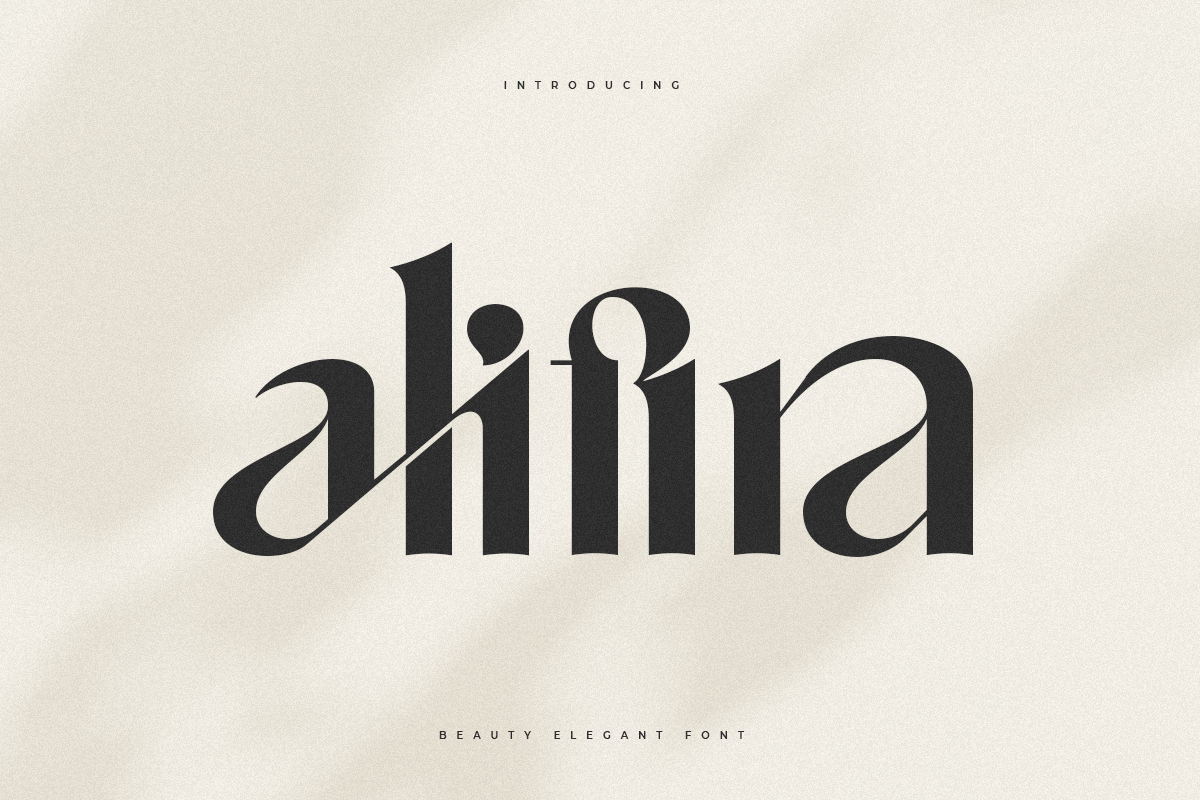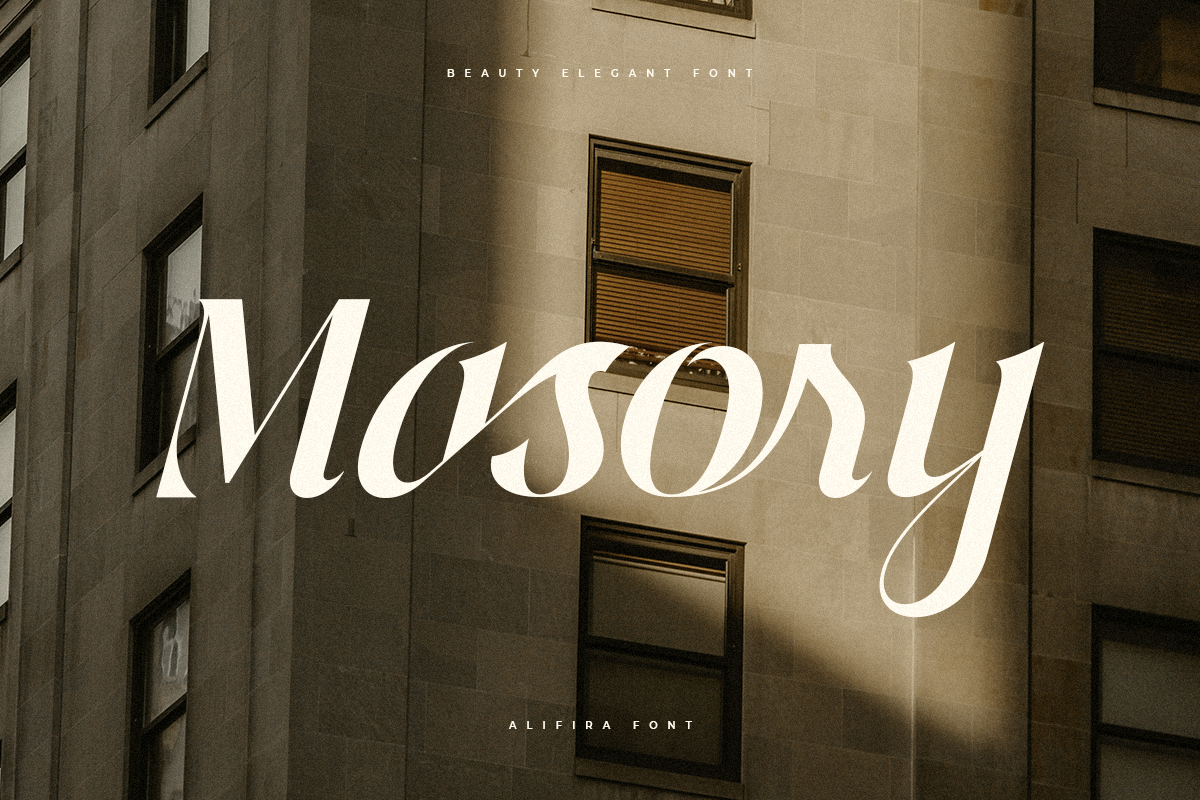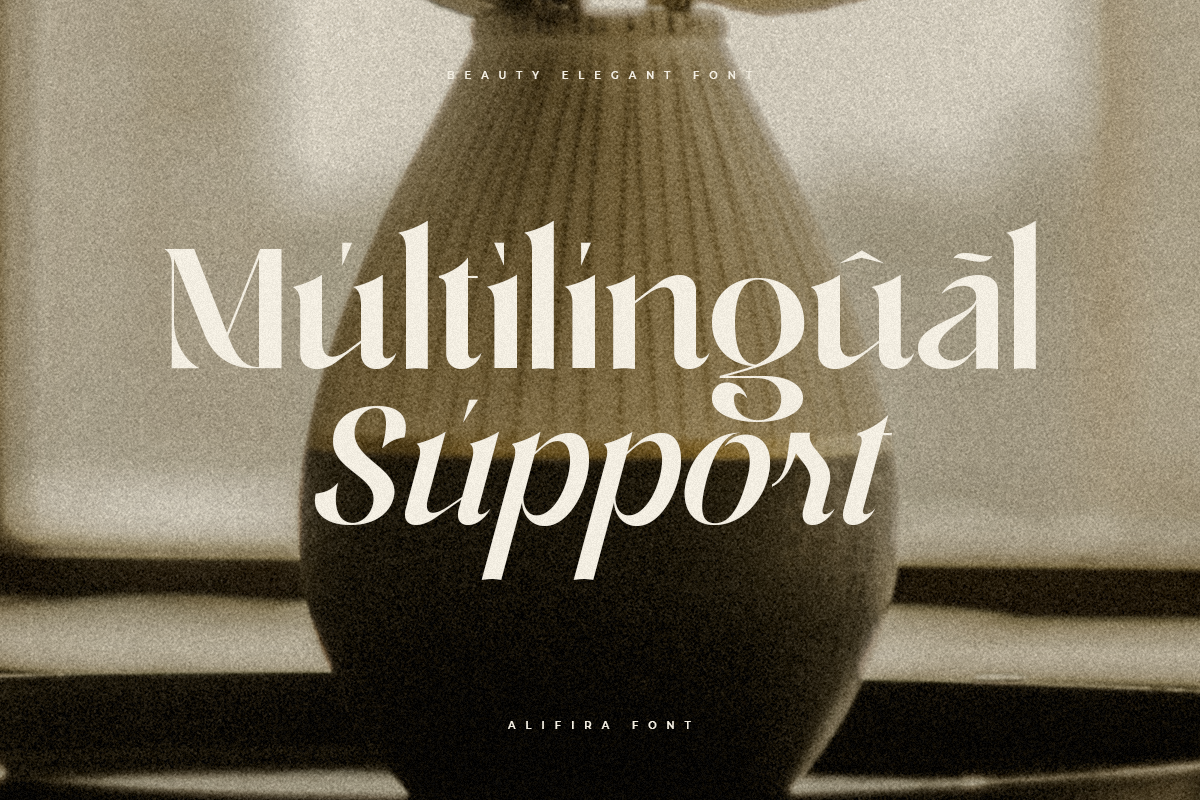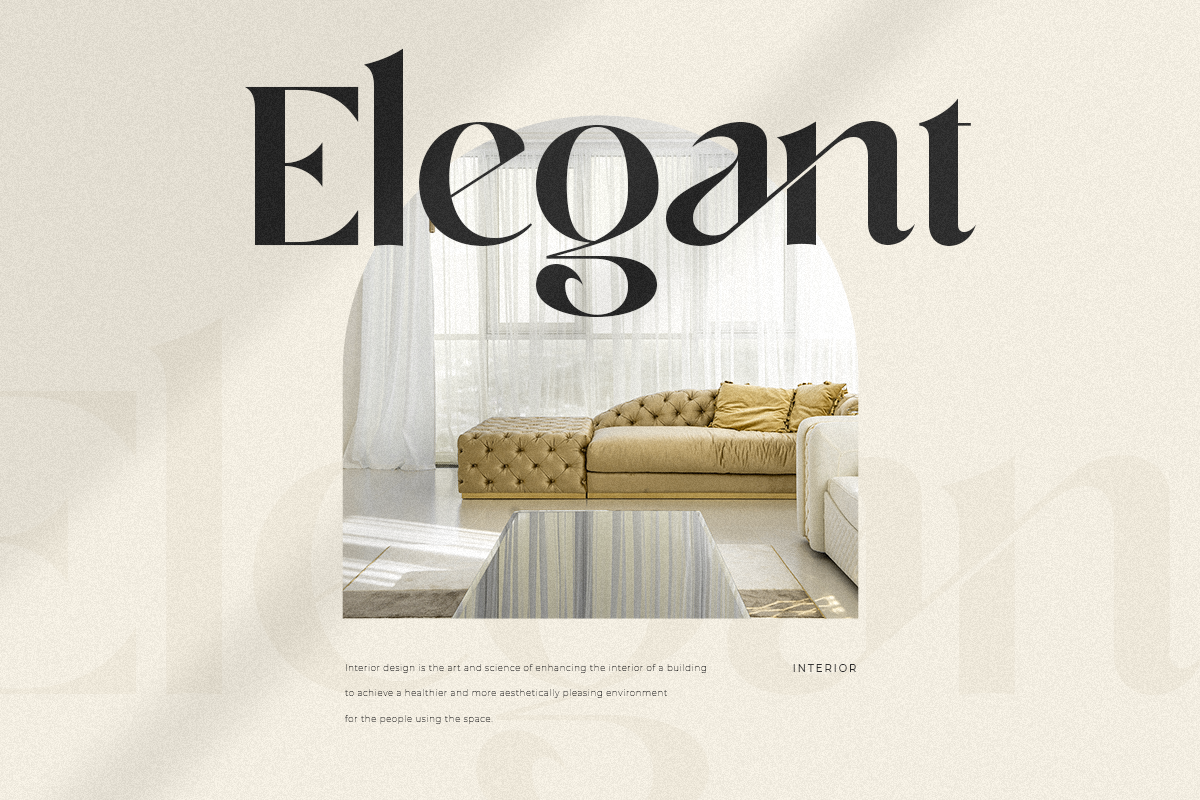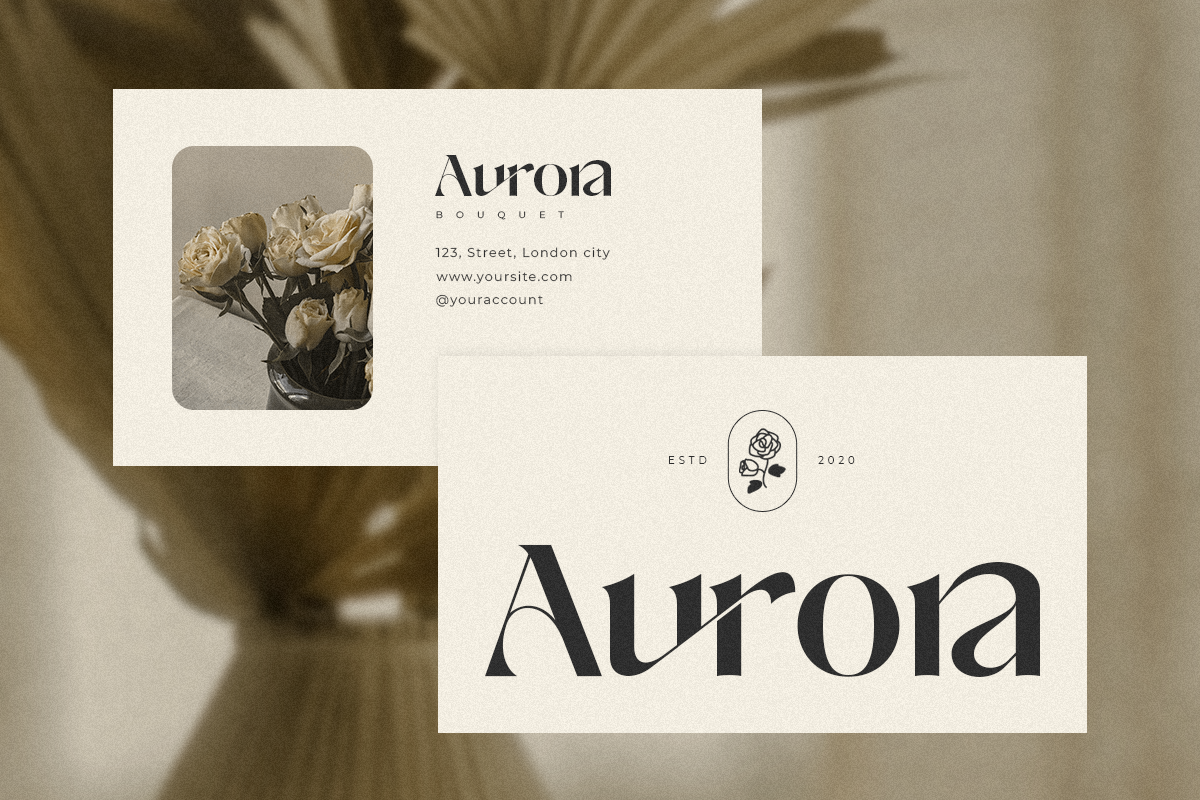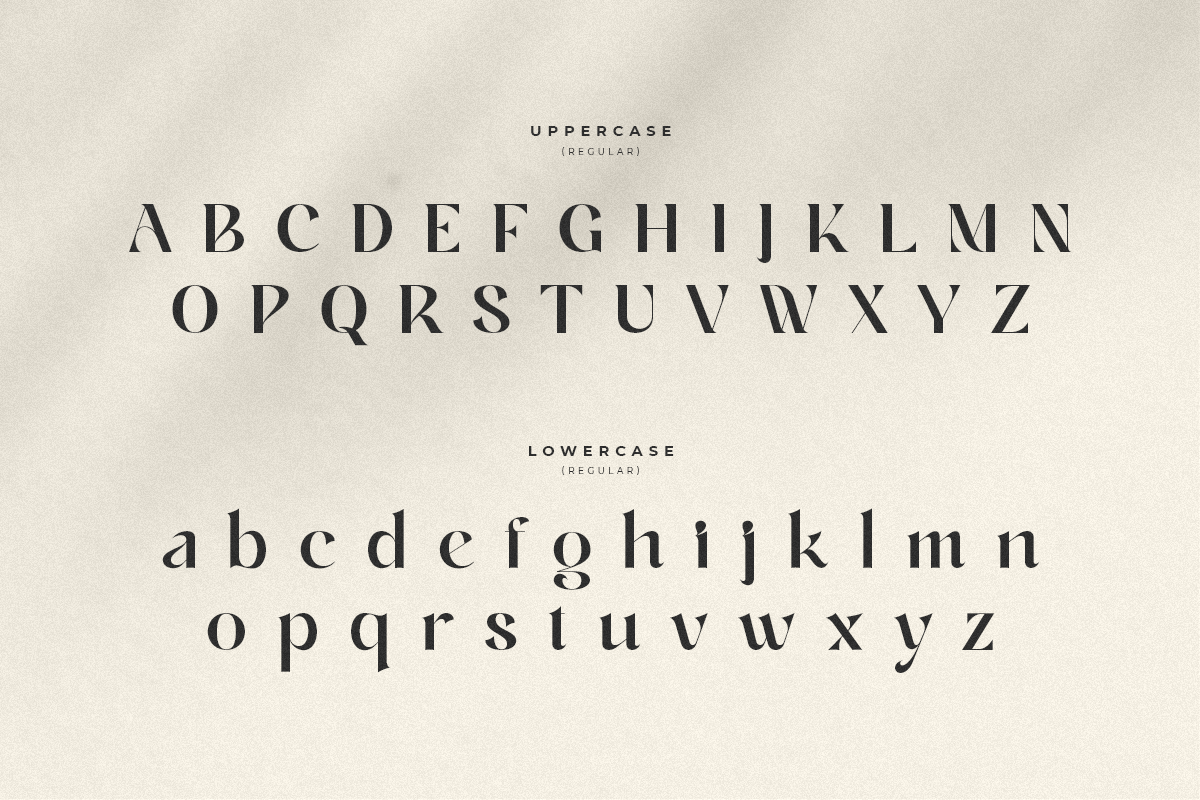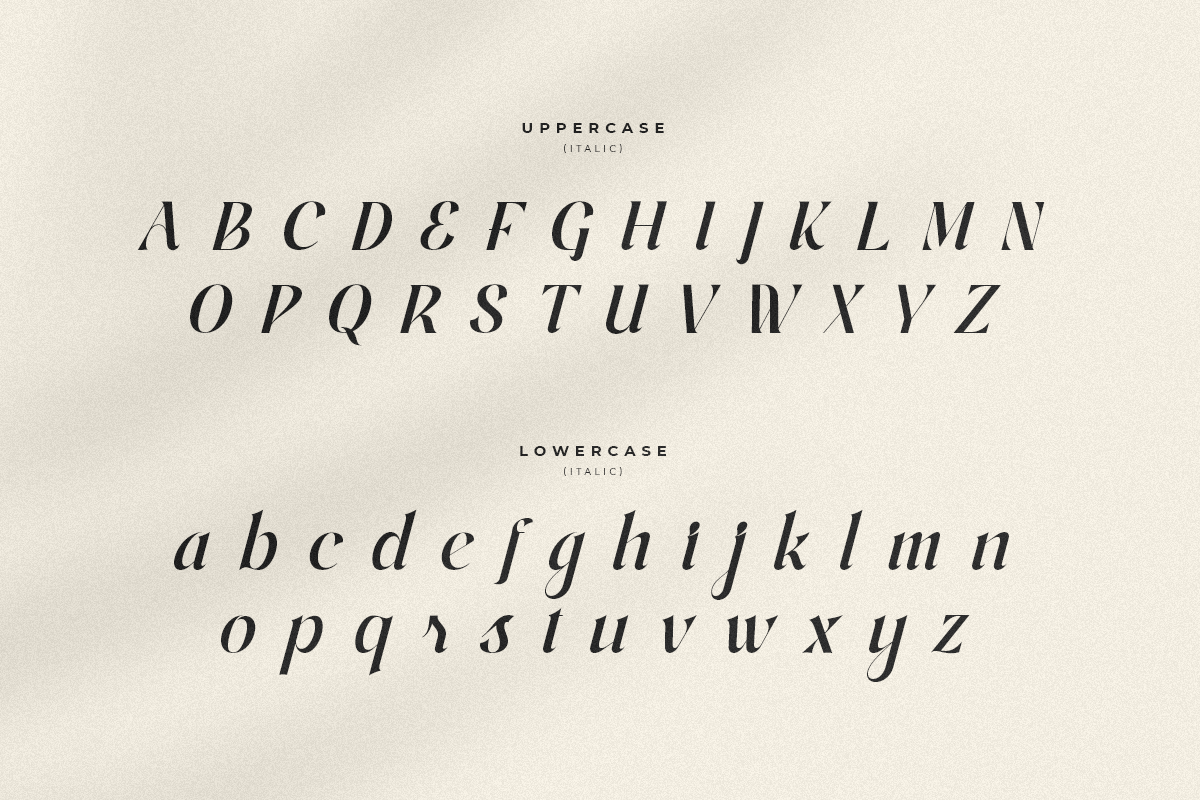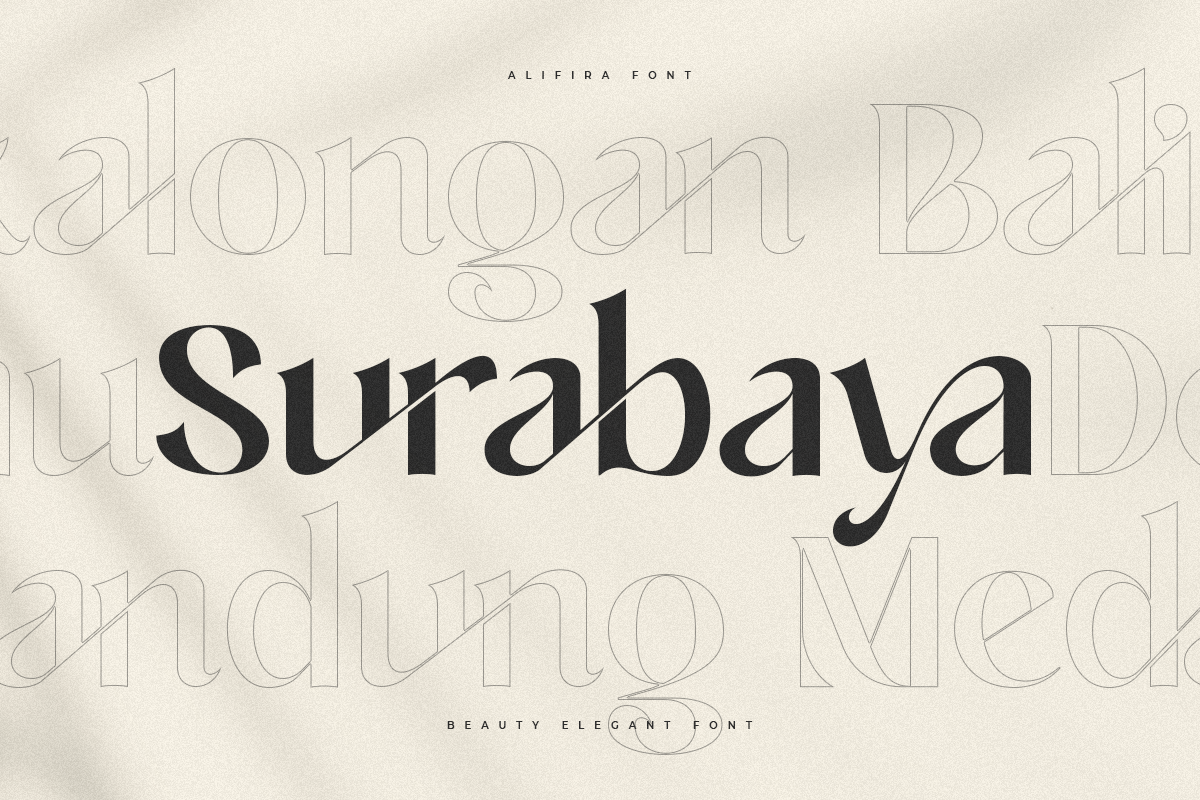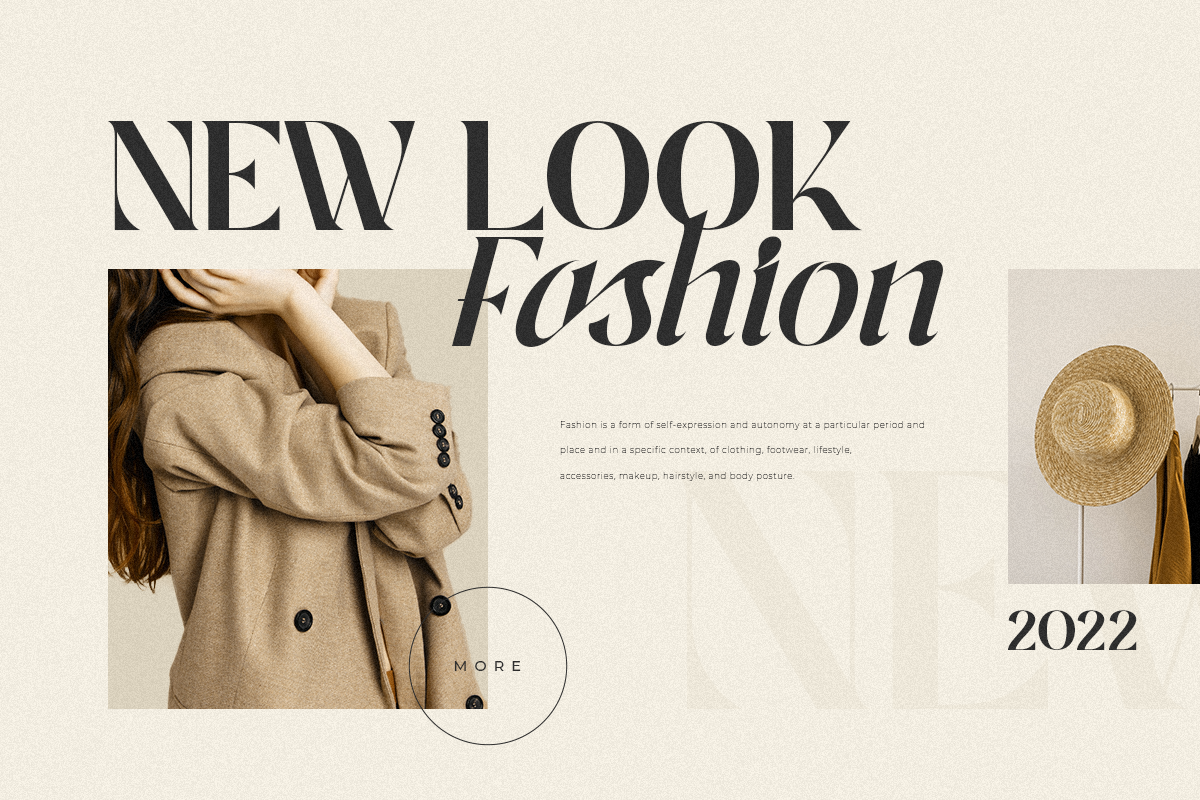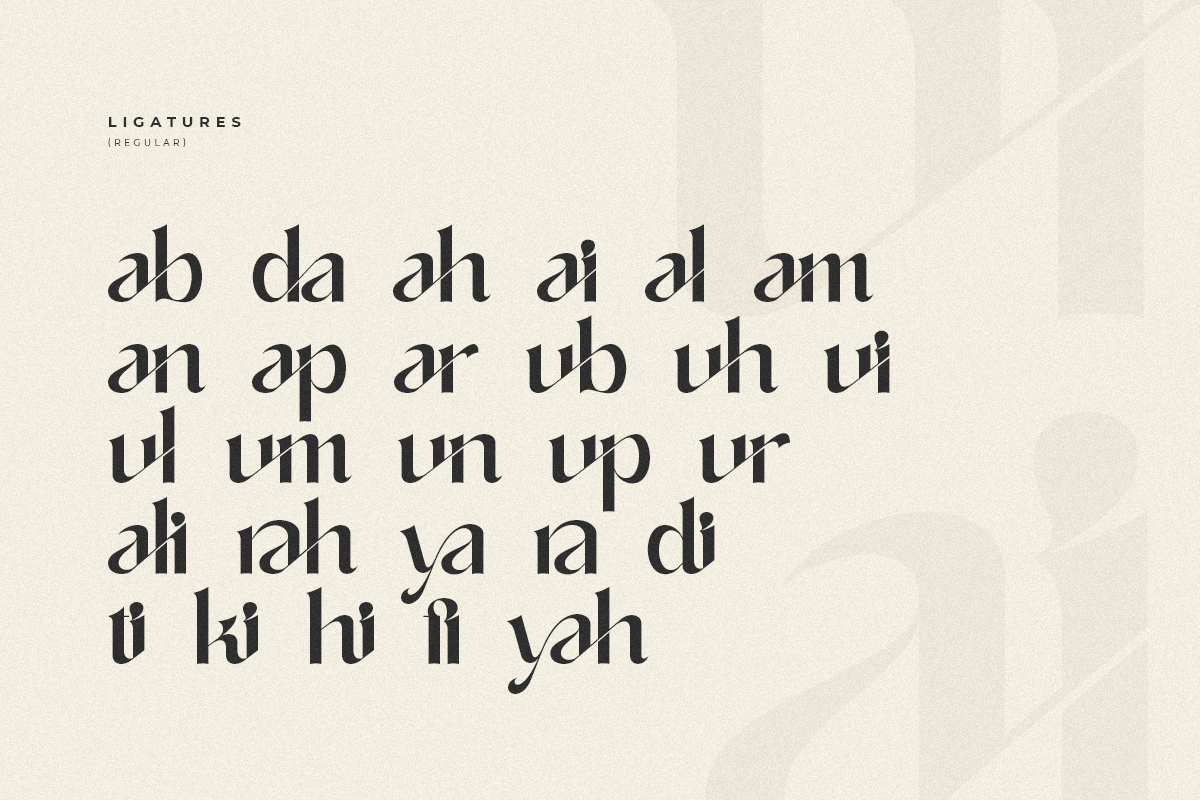
Alifira - Beauty Elegant Font
A Beauty Elegant font that we created special for elegant branding needs, with extra ligatures in unique shape will be ready to add value of your brand. It so nice to leverage designer or product owner that need solutions to make their design look more classy and modern. And specially for Alifira font, We prepared any ligatures and any unique characters to help you create unlimited variations for your creative needs.
Alifira Beauty Elegant font ready with:
- Any options to get creative variations (combination of Ligatures)
- Ready with Lowercase and Uppercase characters